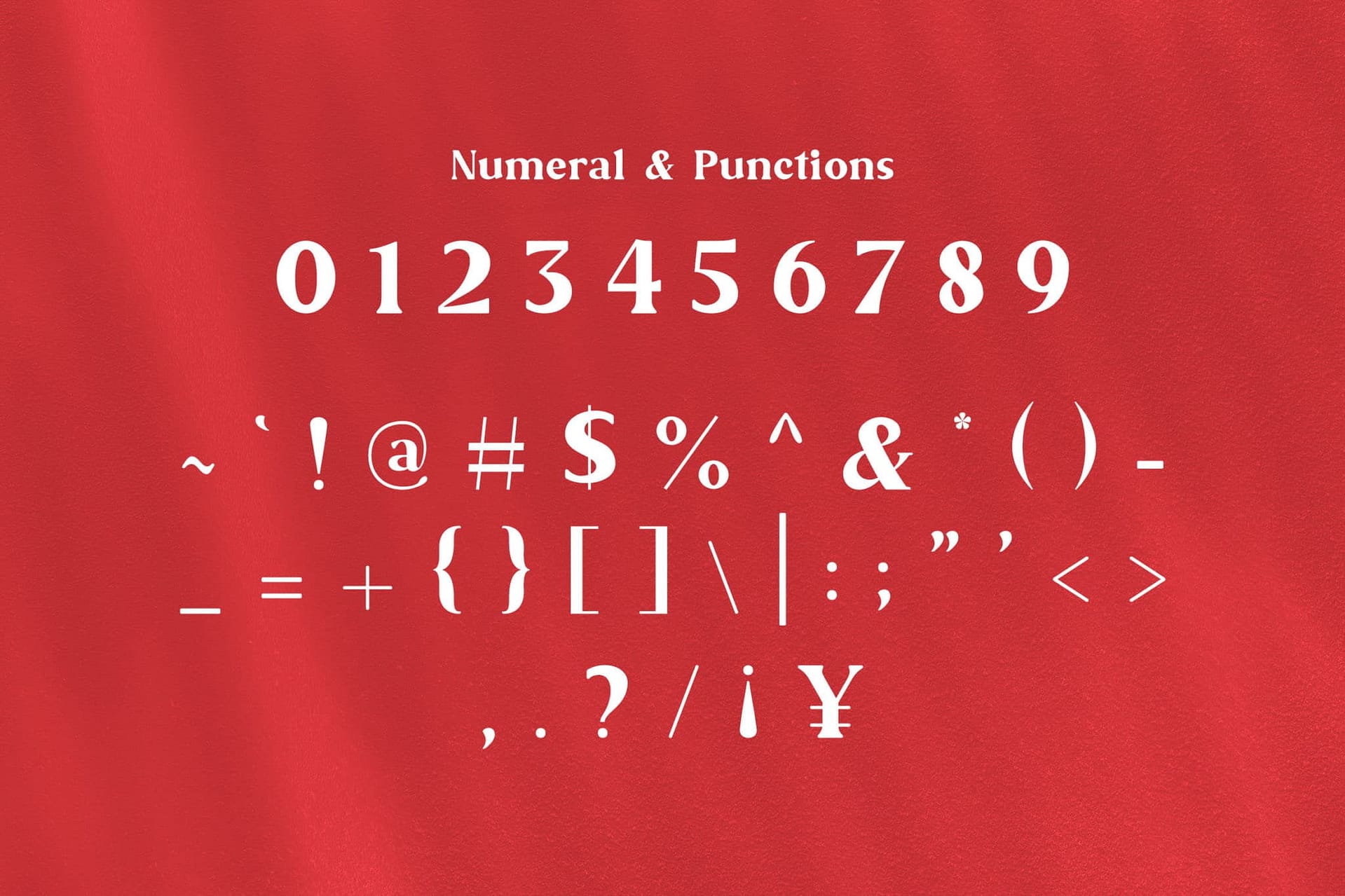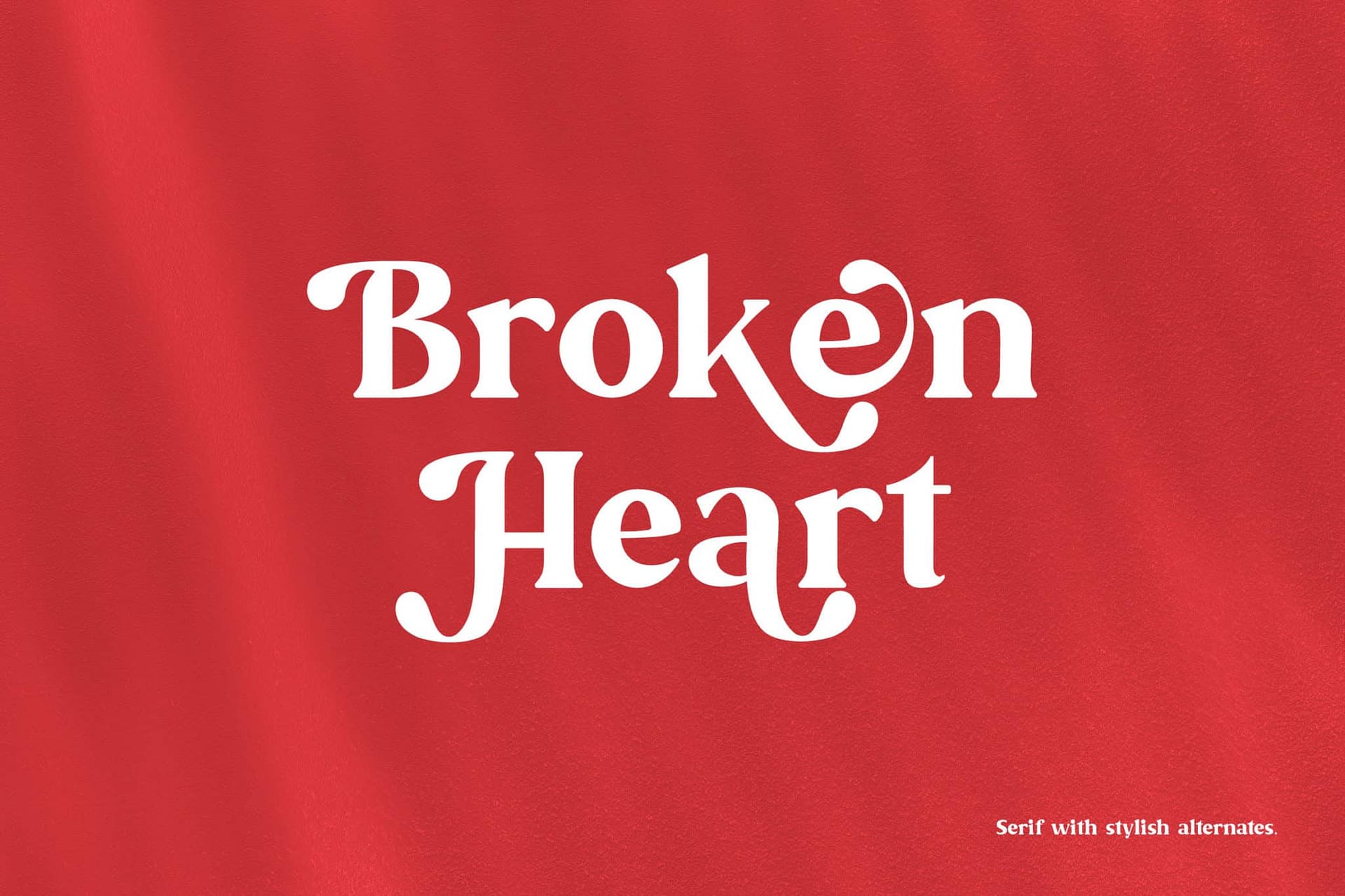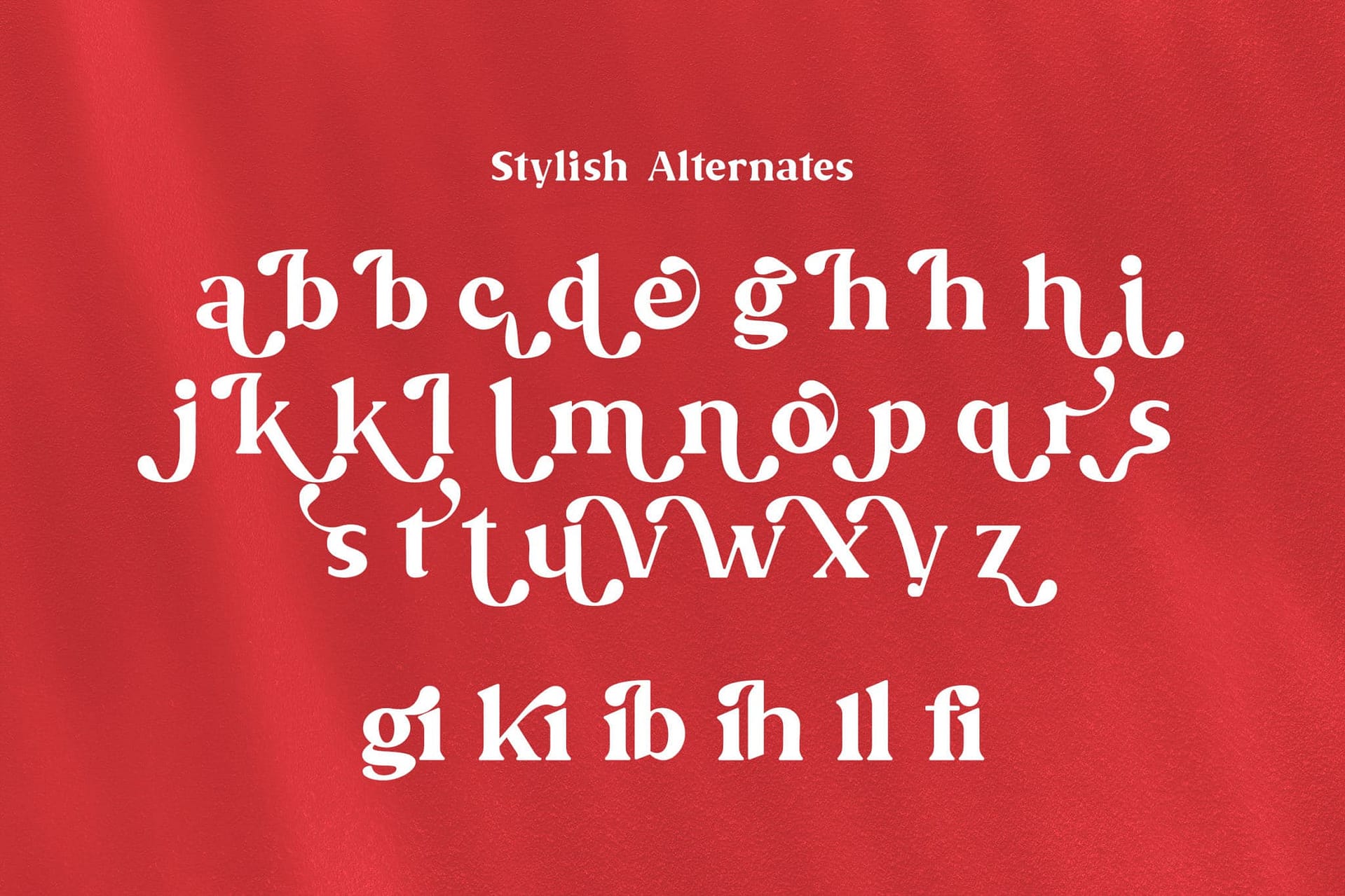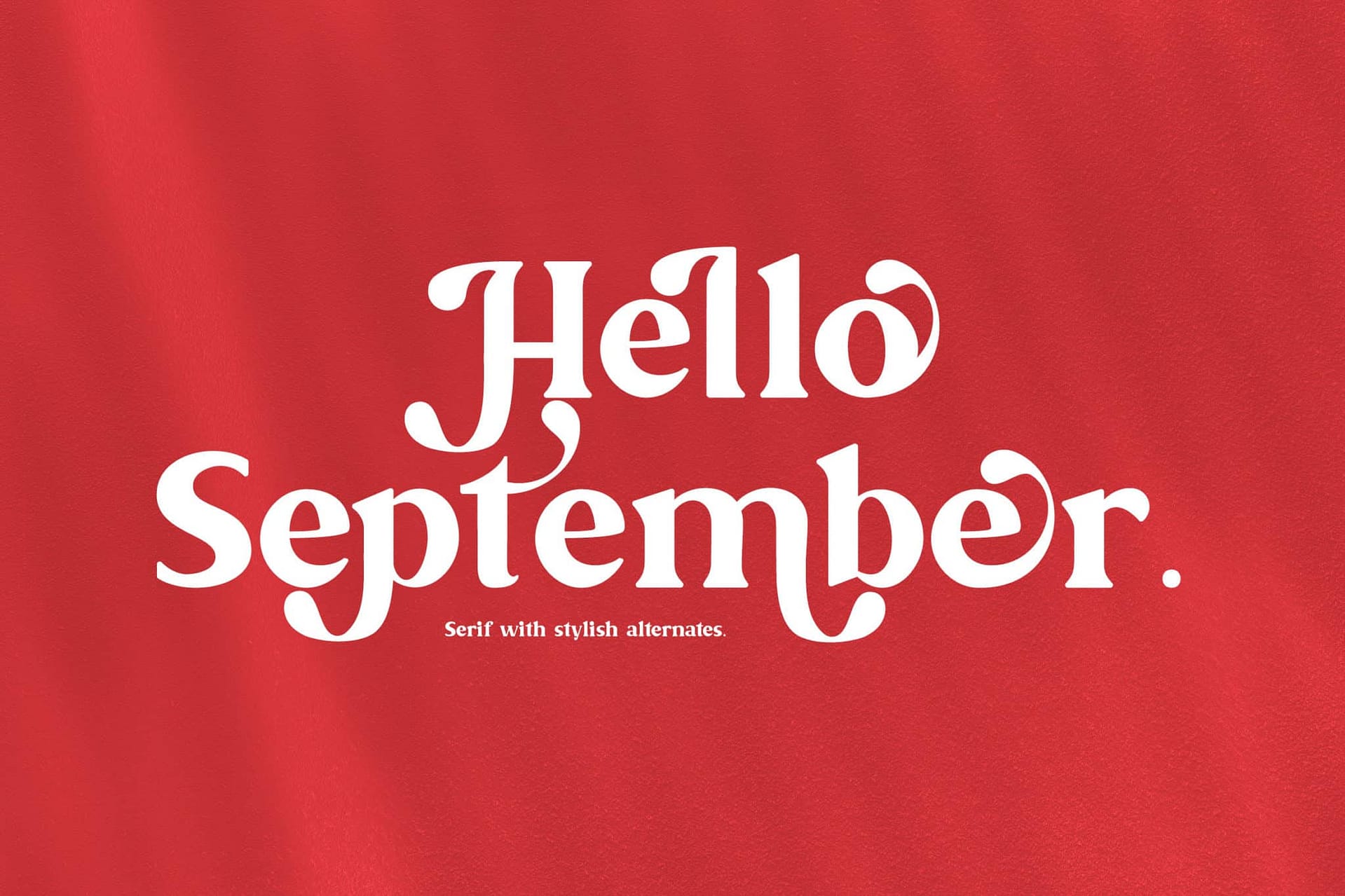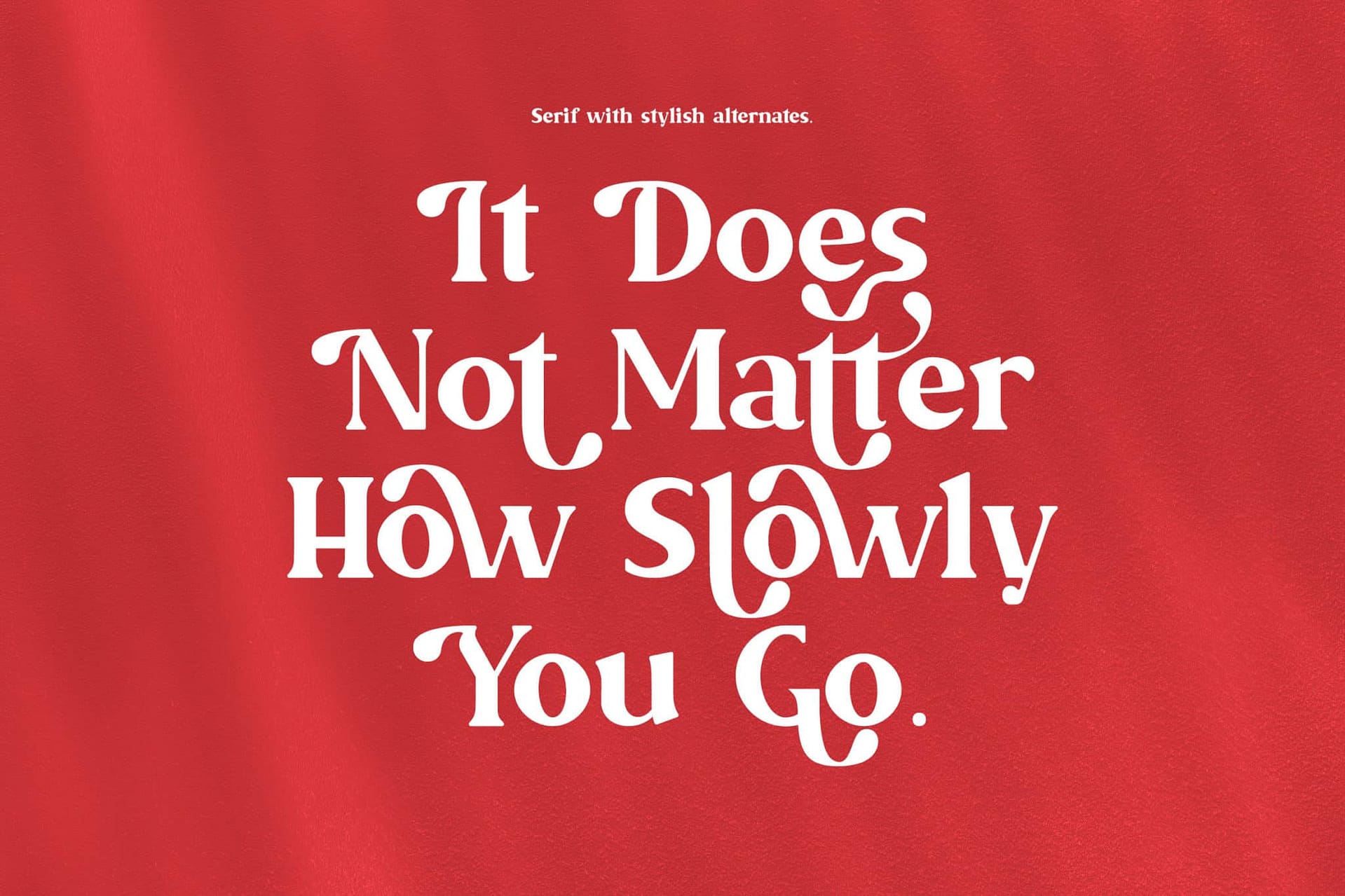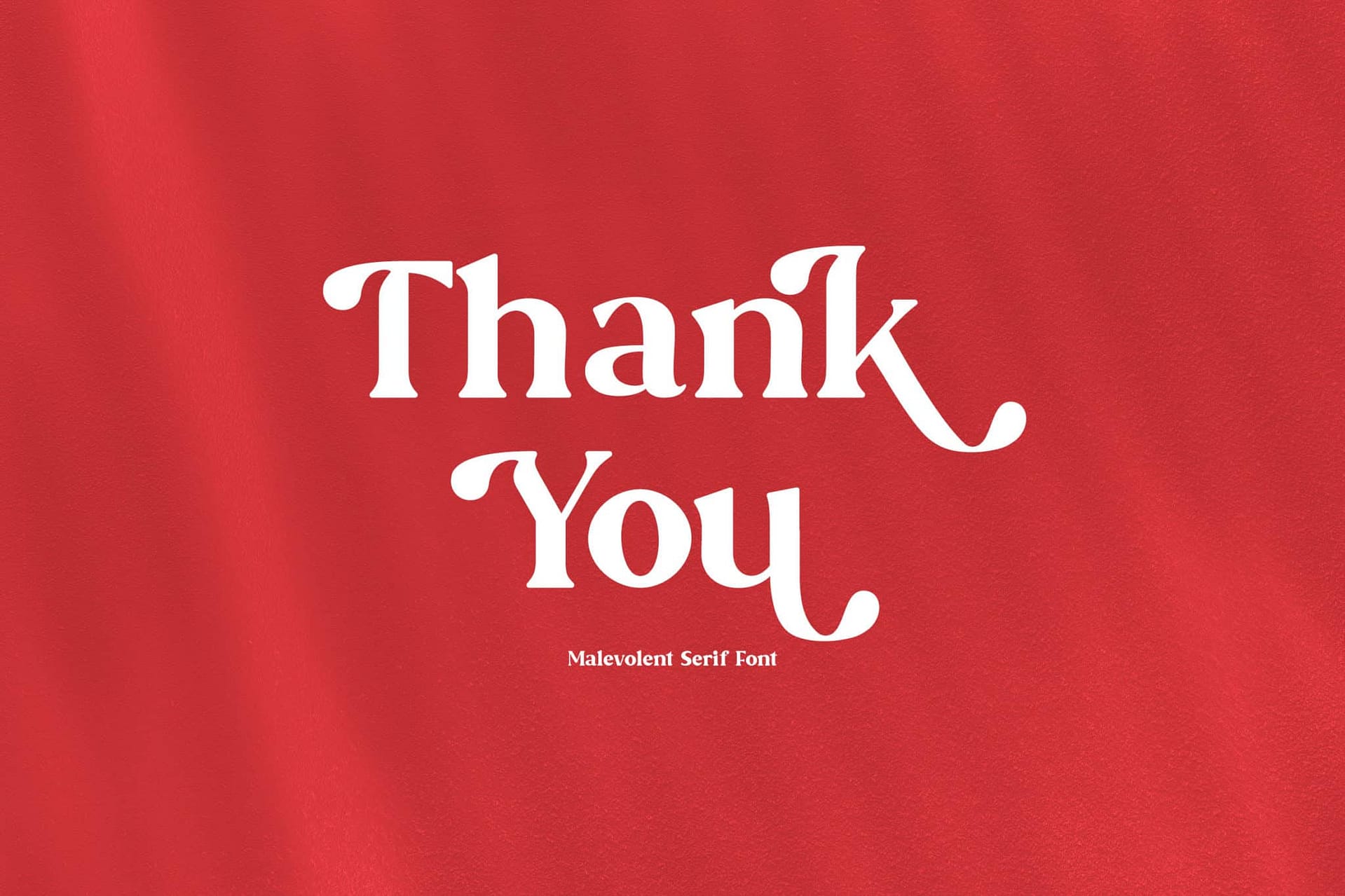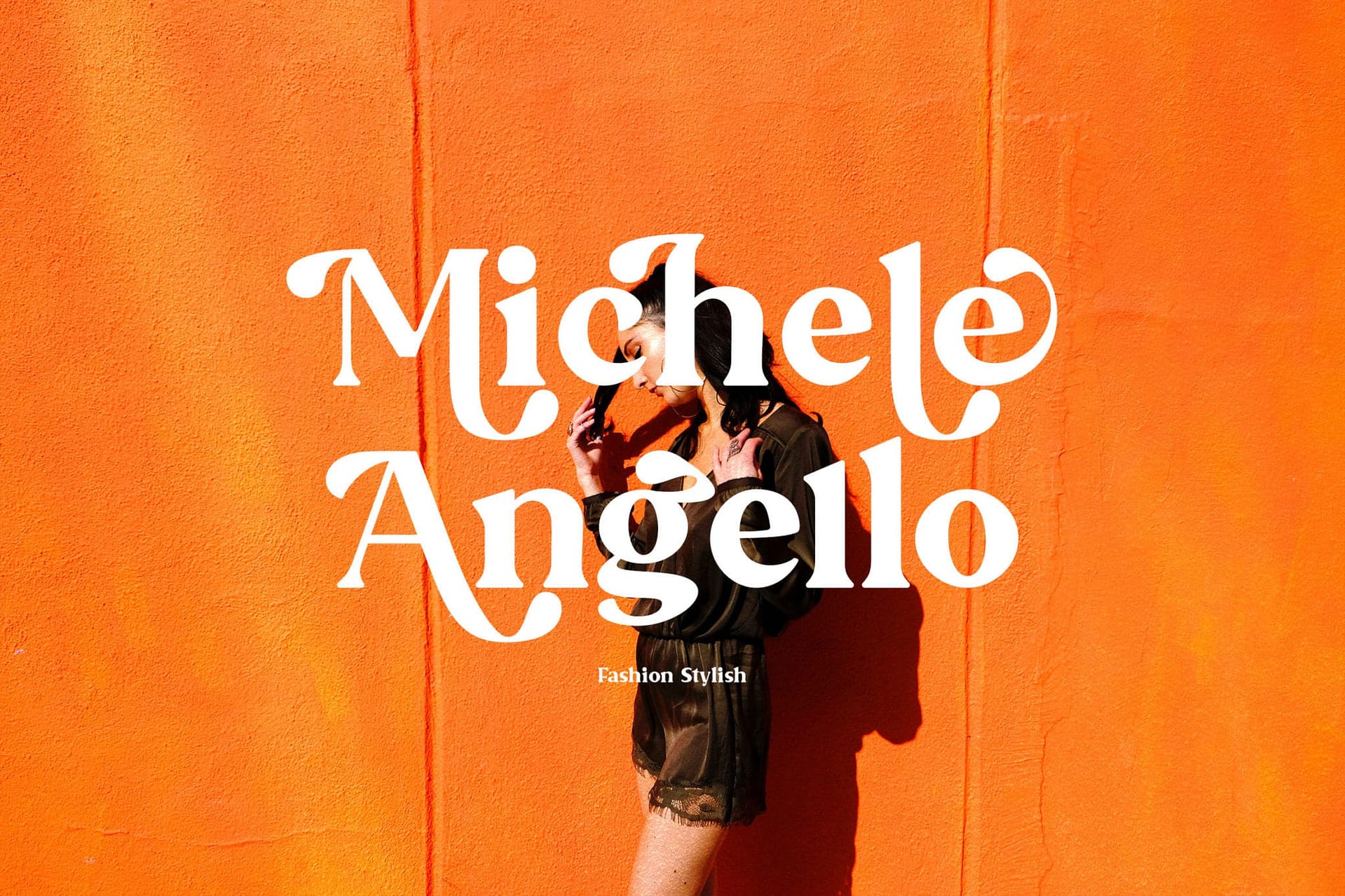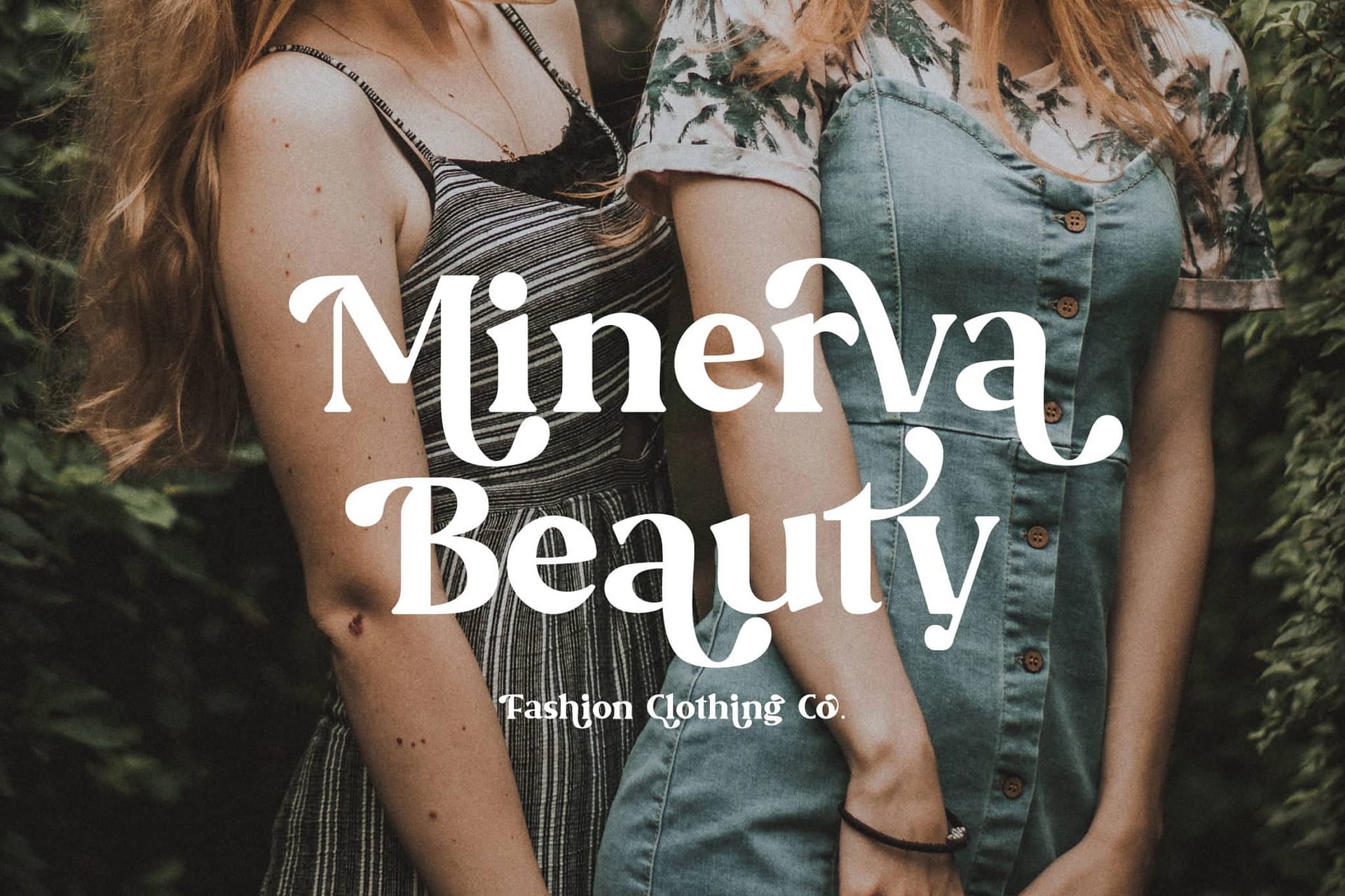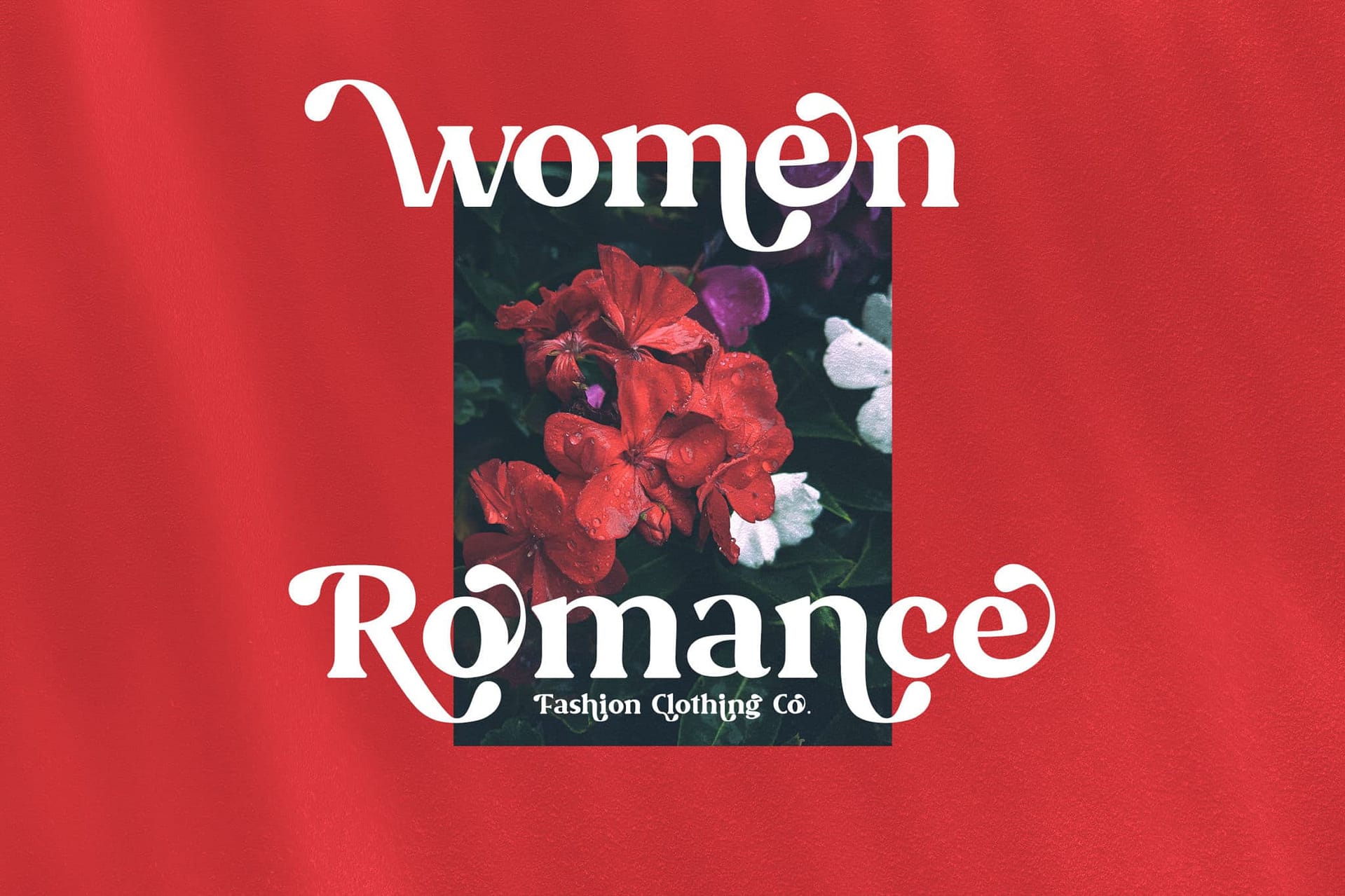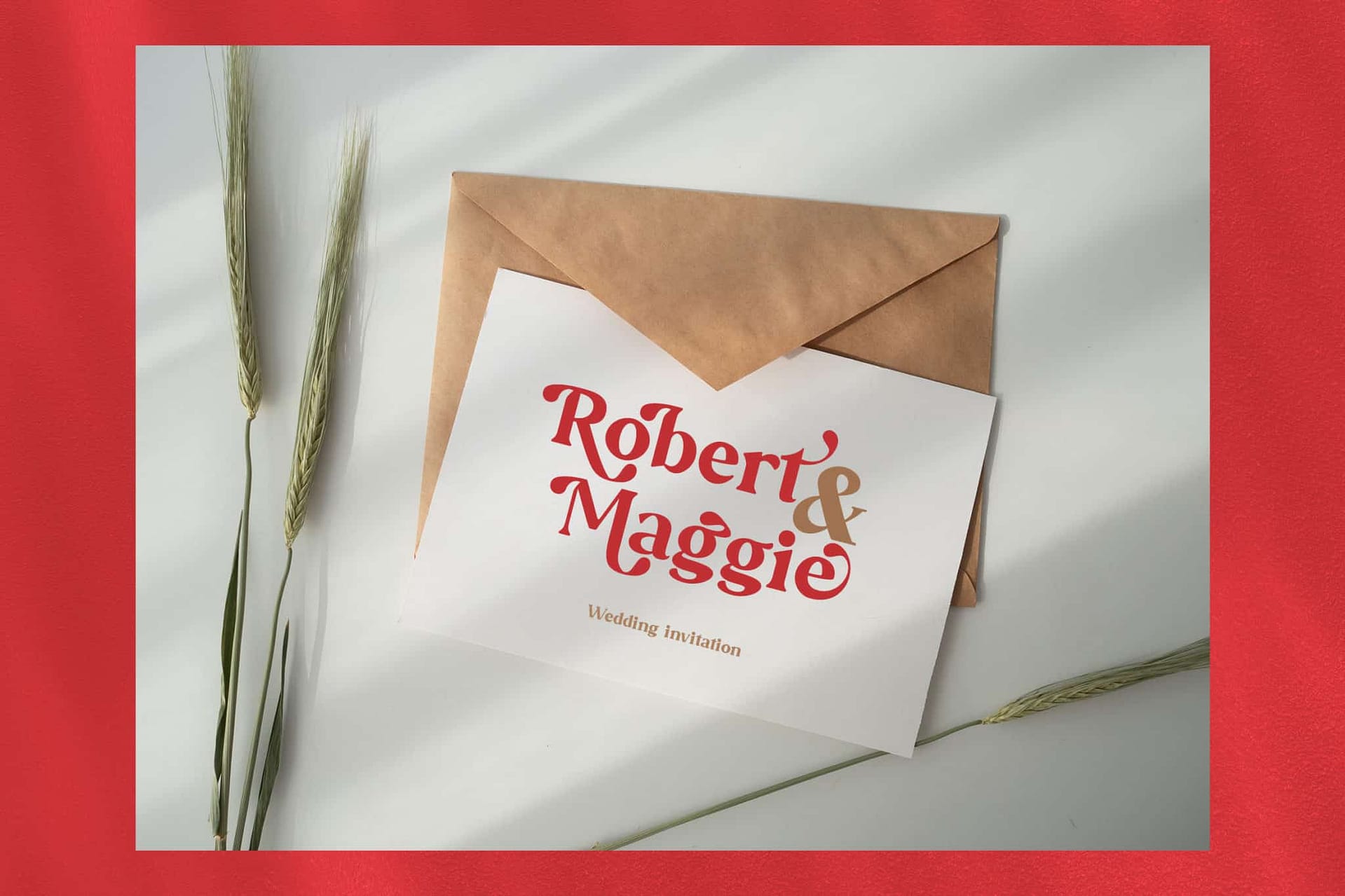
Malevolent is a stylish font that is both retro and bold font. It has vintage, elegant, old school, classy, and retro. It’s a great font for fashion, apparel projects, signature, album cover, logo, branding, magazine, social media, & advertisements, but also works great for other projects.
• Basic Latin A-Z and a-z
• Numbers
• Punctions
Malevolent – Serif Font